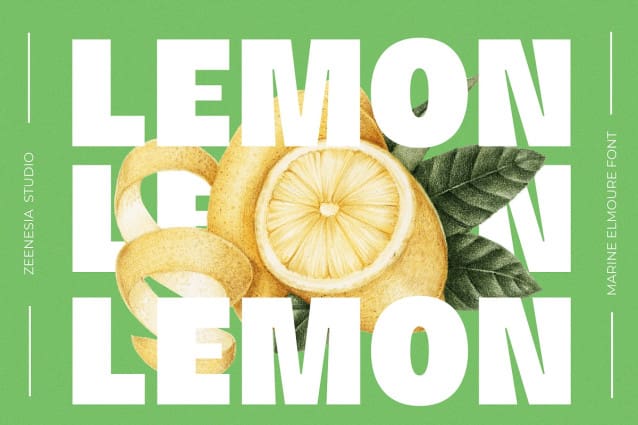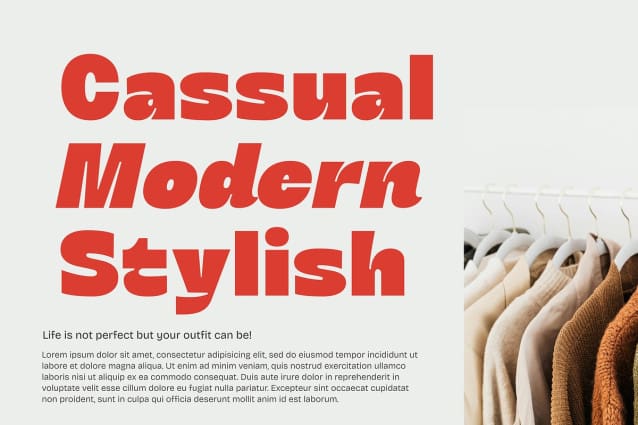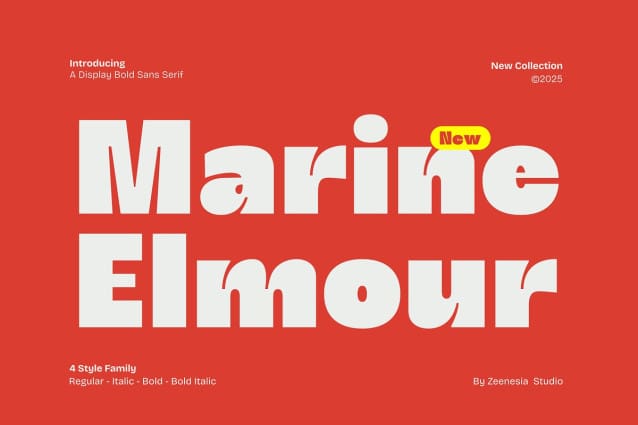
Marine Elmour Font
Marine Elmour is a refined and elegant serif typeface with a timeless charm. Designed for versatility, it comes in four styles: Regular, Italic, Bold, and Bold Italic, making it perfect for both classic and modern designs.
With its graceful curves, balanced proportions, and distinctive details, MarineElmoure exudes sophistication and readability. Whether used for editorial design, branding, packaging, or digital content, this typeface adds a touch of elegance and professionalism to any project.
Elevate your designs with Marine Elmour, where tradition meets contemporary style.